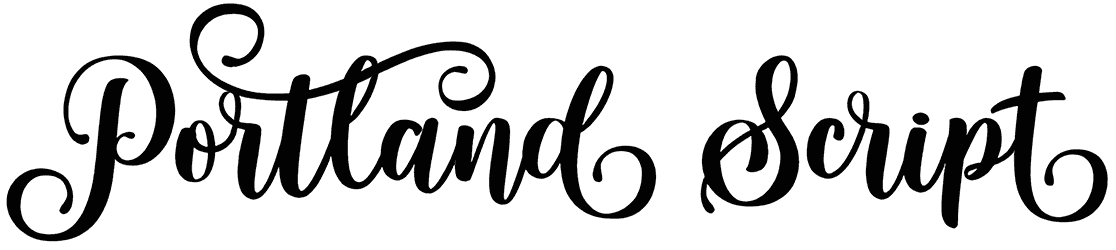
Portland Script Font
Classic calligraphy words would always be a striking choice for any design with any title. Portland Script is a calligraphy font with a curvy and silky letter face that conveys a tasteful vibe. With full support for characters, the Portland Script font will come up to be a nice pickup for varied projects from social media posts to branding.